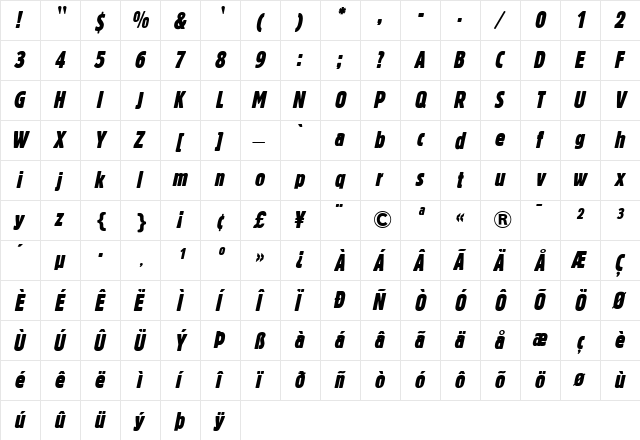
Block Berthold Italic
Design Context for Block Berthold Typeface
Block Berthold takes a measured approach to typography — its balanced proportions and neutral character make it a reliable workhorse for both digital and print work. Its italic angle brings a sense of urgency and motion to the letterforms.
Pro Tip: Use Block Berthold for emphasis, pull quotes, and subheadings where its slanted energy can add rhythm to the layout.